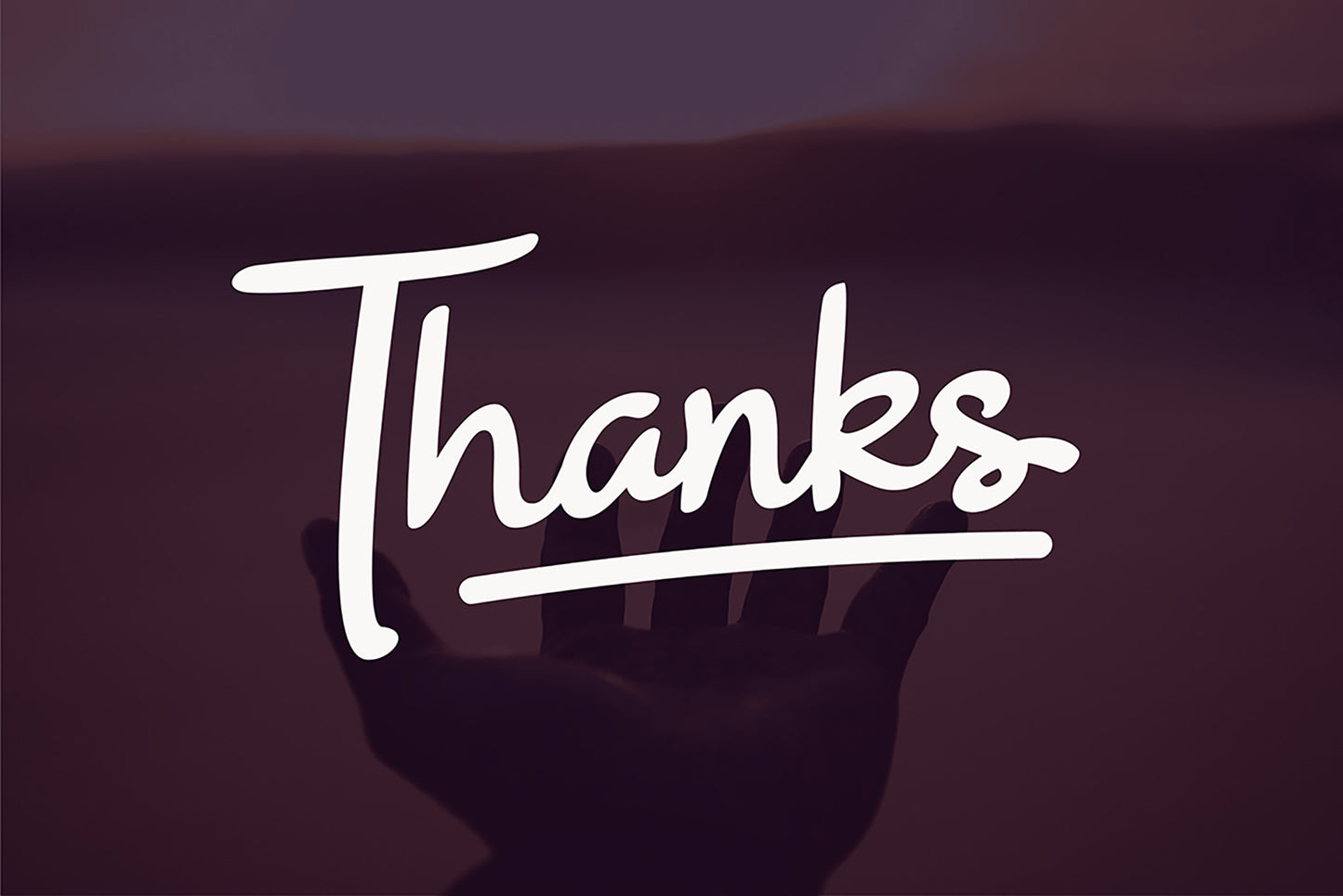
Free Font Beauty Rains
Download and enjoy this free font – beauty rains. Cool typeface to showcase your designs in a modern way. This free font file was found from the amazing source called Pixelify. This is absolutely beautiful font so you can easily make world-class designs.